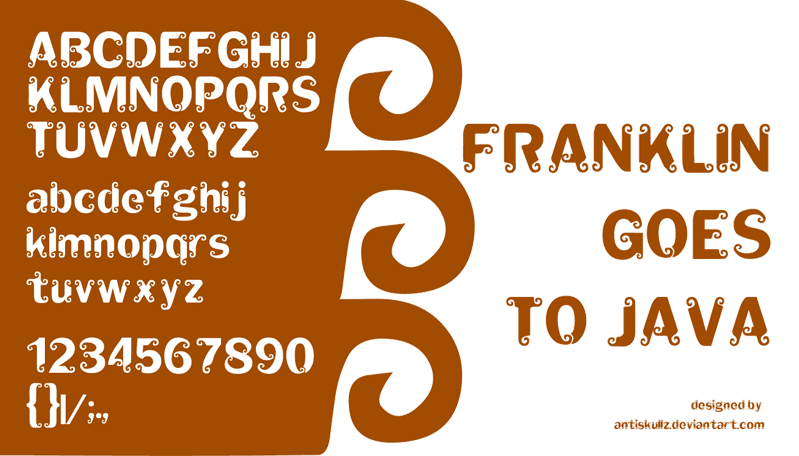
Font name: | Franklin Goes to Java |
Author: | Budiman Ramadhan |
Note by Budiman Ramadhan | |
Franklin Goes to Java ----------------------- This font created with base font Franklin Gothic Demi. I modification it for my personal font. Inspiration from traditional Java Ornament by various application on java culture,such as traditional weapon,traditional architecture |